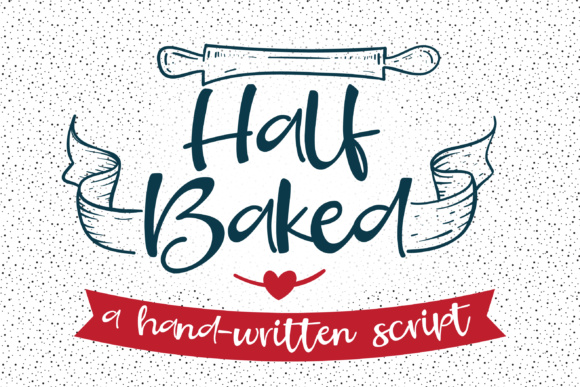
Introducing Half Baked Font - The Imperfectly Perfect Script That Captivates Hearts!
Unleash the whimsical charm of Half Baked Font, a captivating script font family designed to evoke a sense of casual ease and effortless elegance. Crafted by the talented Illustration Ink, this hand-written script possesses an undeniably inviting and approachable vibe that will add a personal touch to all your creative endeavors.
Half Baked Font's endearing imperfections are its defining characteristic, evoking a sense of authenticity and genuine connection. Its graceful curves and playful strokes create a visual rhythm that mimics the natural flow of handwriting, instantly capturing the viewer's attention and creating a lasting impression.
Step into a world of endless creative possibilities with Half Baked Font. Whether you're a graphic designer seeking to add a touch of whimsy to your designs, a blogger looking to create captivating visuals, or a social media enthusiast seeking to make your posts pop, Half Baked Font is your perfect companion.
Embrace the beauty of imperfection and let Half Baked Font inject a breath of fresh air into your creative projects. Its charming hand-lettered style lends itself perfectly to branding, packaging, invitations, social media posts, and so much more. The possibilities are endless, just like your imagination.
Don't settle for ordinary fonts that blend into the background. Choose Half Baked Font and let your creativity shine through. Its captivating charm will captivate audiences, leaving an unforgettable mark on their minds.
So, dive into the world of Half Baked Font today and experience the joy of creating with a font that truly speaks to your heart. Let its playful spirit and enchanting allure elevate your designs and leave a lasting impression that will keep them coming back for more.